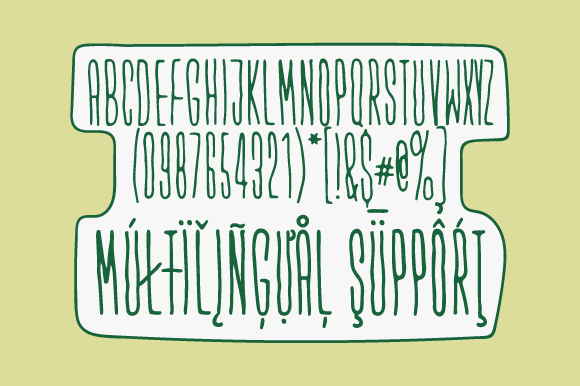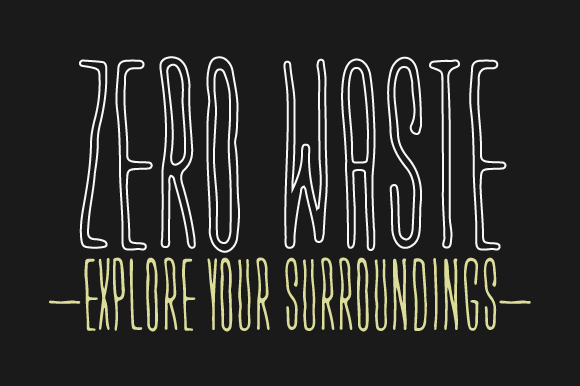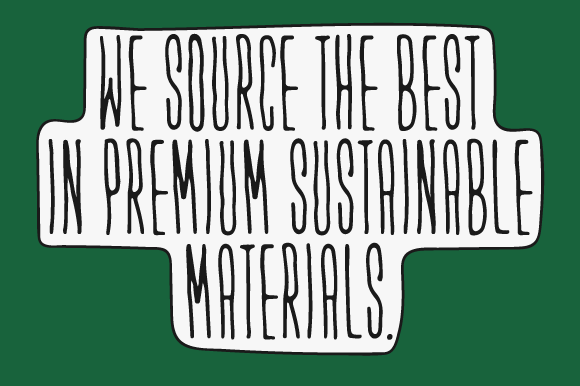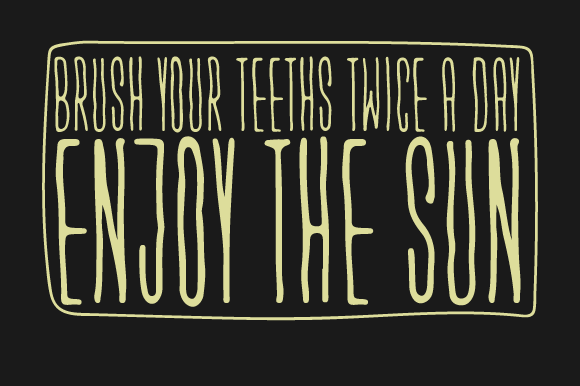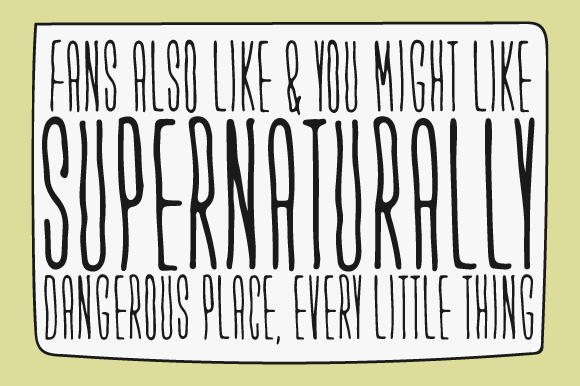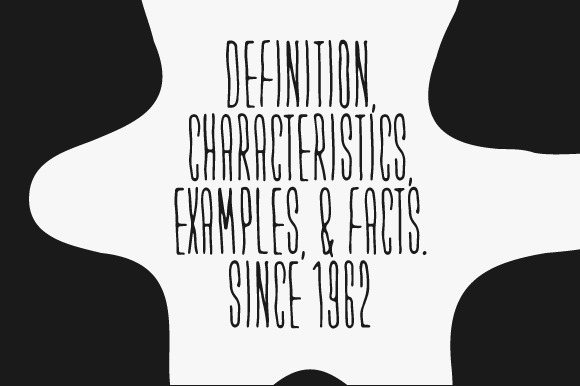
Catcher Font: The Sweet and Friendly Handwritten Font for Your Designs
Are you a designer or crafter looking for a font that can add a personal touch to your creations? Look no further than Catcher Font, a sweet and friendly handwritten font that’s perfect for a wide range of designs. With its natural and unique style, Catcher Font is incredibly versatile and can be used for everything from greeting cards to branding and packaging.
The Characteristics of Catcher Font
Catcher Font is a handwritten font that’s designed to look like it was written with love and care. Its natural and unique style makes it stand out from more traditional fonts, and its friendly tone is sure to make your designs feel approachable and inviting. The font is highly legible, making it perfect for use in both digital and print designs.
The Benefits of Using Catcher Font
So why choose Catcher Font for your designs? Here are just a few benefits of using this sweet and friendly font:
• Versatility: Catcher Font is incredibly versatile and can be used for a wide range of designs, from formal to informal. Whether you’re creating a wedding invitation or a social media graphic, Catcher Font is a great choice.
• Uniqueness: With its natural and unique style, Catcher Font is sure to make your designs stand out from the crowd. This font is perfect for designers and crafters who want to add a personal touch to their creations.
• Legibility: Catcher Font is highly legible, making it perfect for use in both digital and print designs. Whether you’re creating a website or a brochure, Catcher Font is a great choice.
How to Use Catcher Font in Your Designs
So how can you use Catcher Font in your designs? Here are a few ideas to get you started:
• Greeting Cards: Catcher Font is perfect for creating personalized greeting cards for special occasions like birthdays, weddings, and holidays.
• Branding and Packaging: Use Catcher Font to add a personal touch to your branding and packaging. This font is perfect for creating labels, stickers, and other packaging materials.
• Social Media Graphics: Catcher Font is a great choice for social media graphics, including Facebook posts, Instagram stories, and Twitter headers.
• Web Design: Use Catcher Font to add a personal touch to your website. This font is perfect for creating headings, titles, and other website elements.
Tips for Getting the Most Out of Catcher Font
Here are a few tips for getting the most out of Catcher Font:
• Experiment with Colors: Catcher Font looks great in a variety of colors, so don’t be afraid to experiment and find the perfect color for your design.
• Mix and Match: Try mixing and matching Catcher Font with other fonts to create a unique and interesting design.
• Use it in Combination with Images: Catcher Font looks great in combination with images, so try using it to add a personal touch to your photos and illustrations.
In conclusion, Catcher Font is a sweet and friendly handwritten font that’s perfect for designers and crafters who want to add a personal touch to their creations. With its natural and unique style, Catcher Font is incredibly versatile and can be used for a wide range of designs. Whether you’re creating a greeting card, a social media graphic, or a website, Catcher Font is a great choice. So why not give it a try and see what amazing designs you can create?